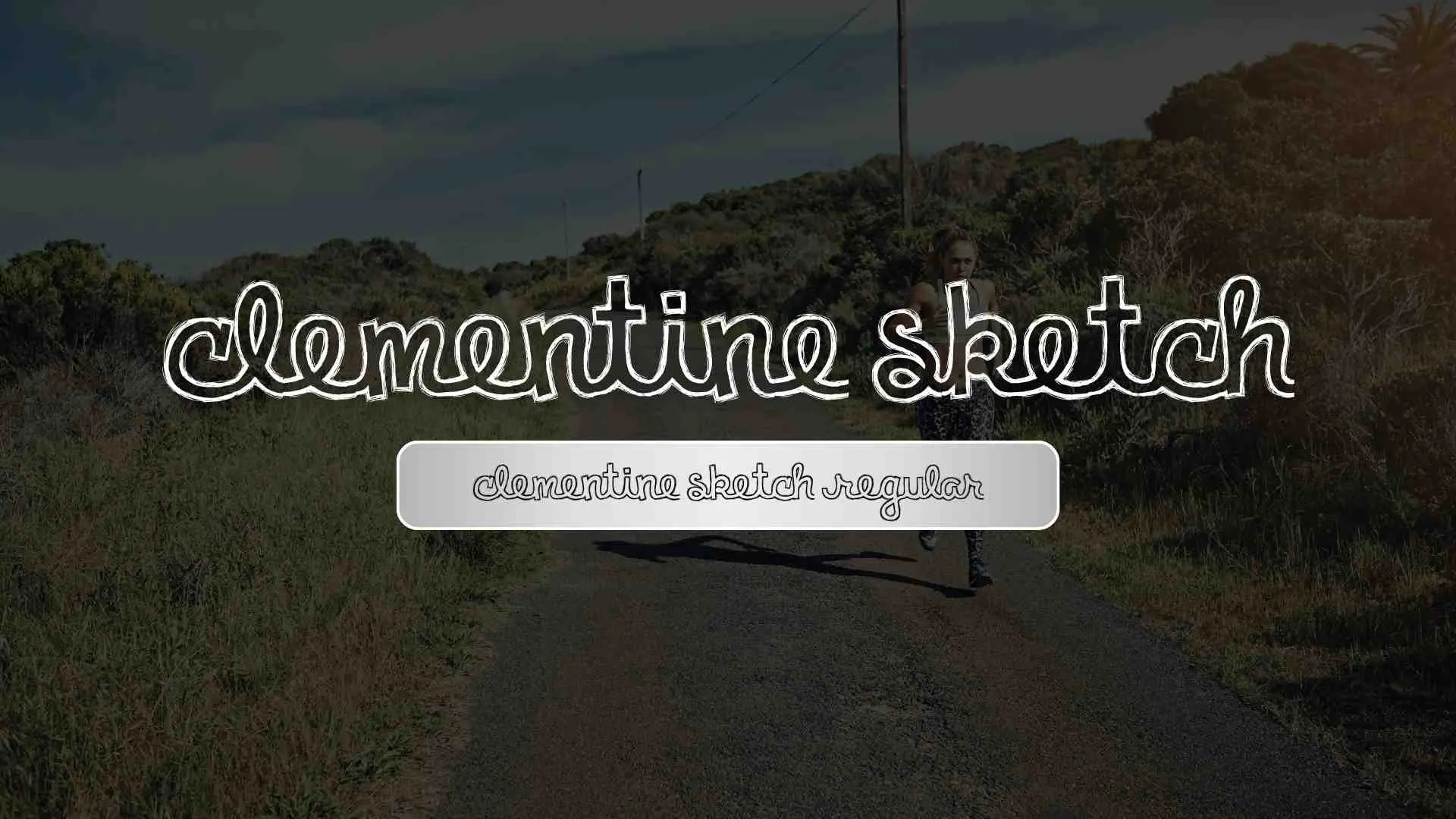
The font Clementine Sketch Regular, designed by Teagan White, falls under the Display category & Clementine Sketch font family. Its smooth, flowing letterforms make it a versatile choice for projects that require both elegance and readability. Clementine Sketch is particularly well-suited for Branding, Headlines, Titles, Event Posters, Children's Media, Formal Invitations and Logos. With its balance of simplicity and decorative appeal, this font brings a polished touch to both personal and professional designs.